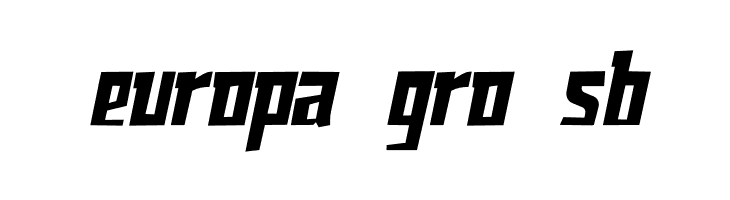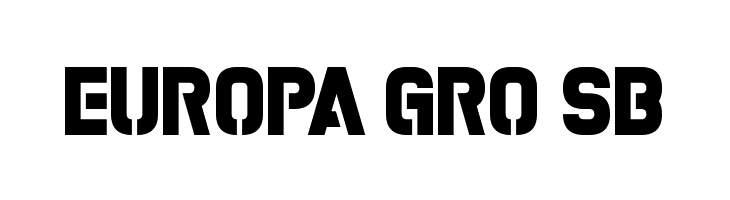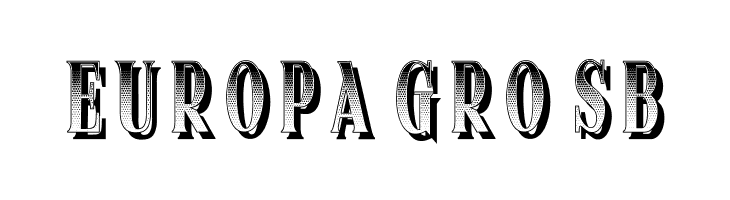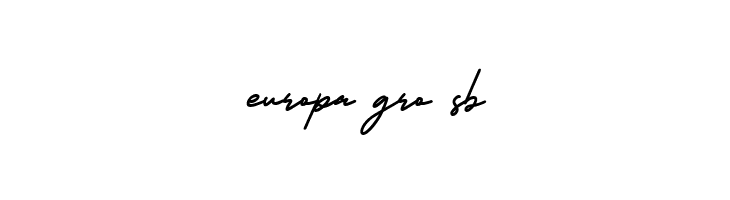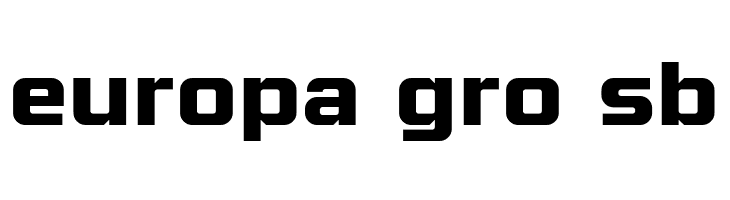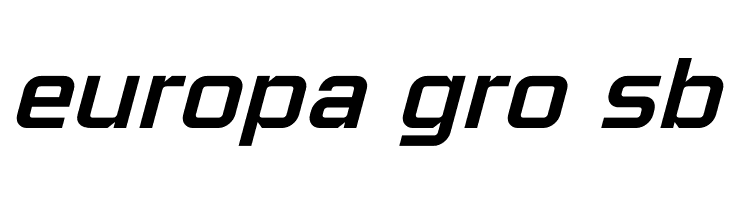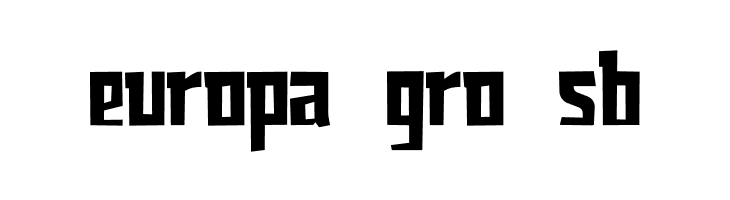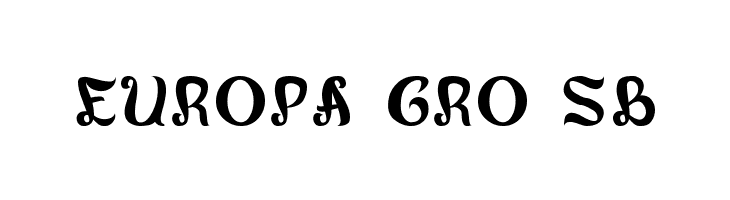
• Armstrong
A bold, geometric font with sharp, angular characters.
• Armstrong Extrabold
A bold, modern font with geometric precision and strong visual impact.
• Armstrong Free Regular
A dynamic handwritten font with fluid, sweeping strokes and a casual elegance.
• Armstrong Italic
A bold, angular italic font with a dynamic and modern style.
• Armstrong Oblique
A sleek, modern oblique font with clean lines and a dynamic appearance.
• Armstrong Tilted
A bold, angular font with a geometric and dynamic style.
• ArmWrestler Bold
A bold, modern typeface with strong, thick strokes for impactful design.
• Army Buster
A bold, stencil-like font with a military-inspired design.
• Army Guys Regular
A bold, decorative font with a vintage military style and three-dimensional effect.
• army of me
A bold, decorative font with playful circular embellishments and vintage flair.